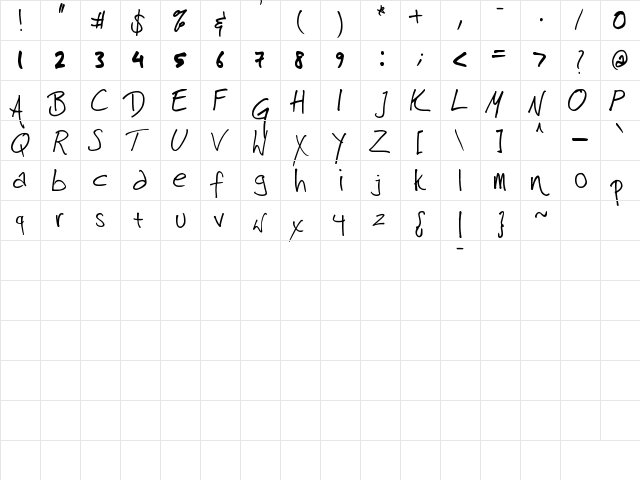
harrison Regular
Design Context for harrison Typeface
harrison is a composed and adaptable typeface that performs quietly and consistently across a wide range of design contexts.